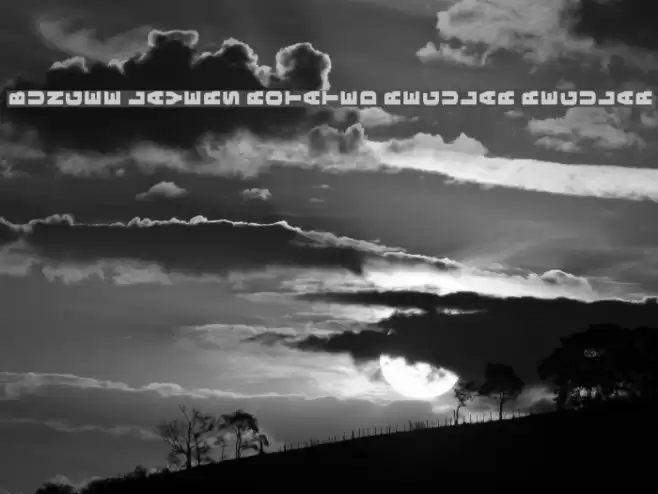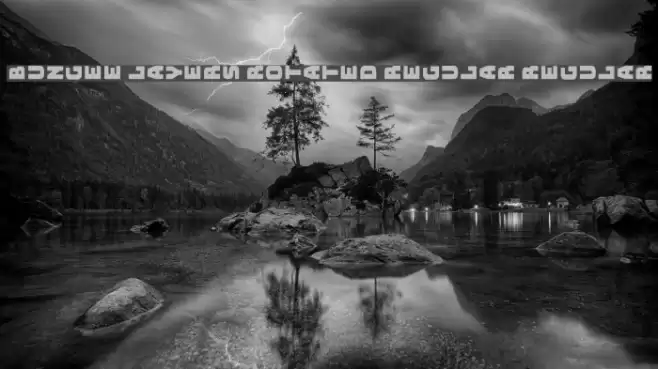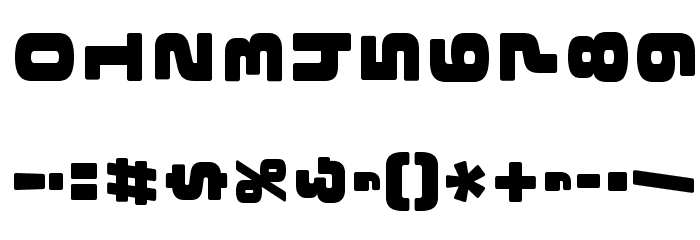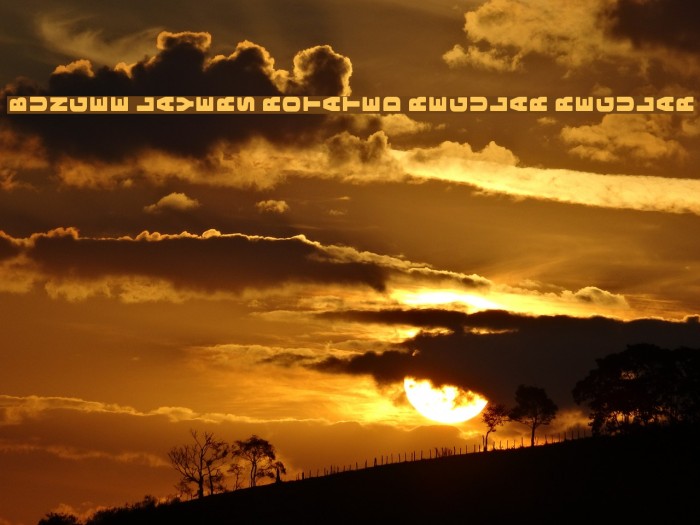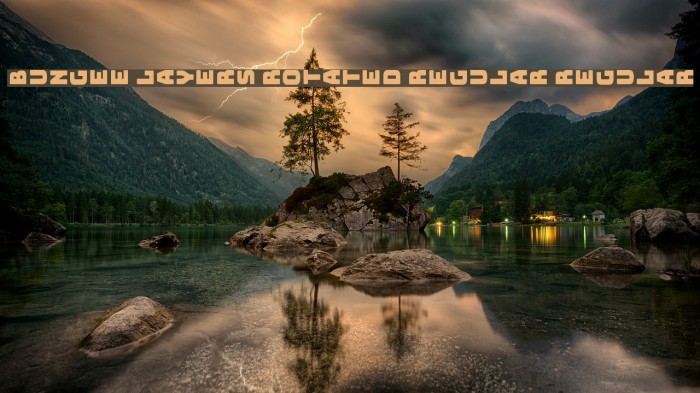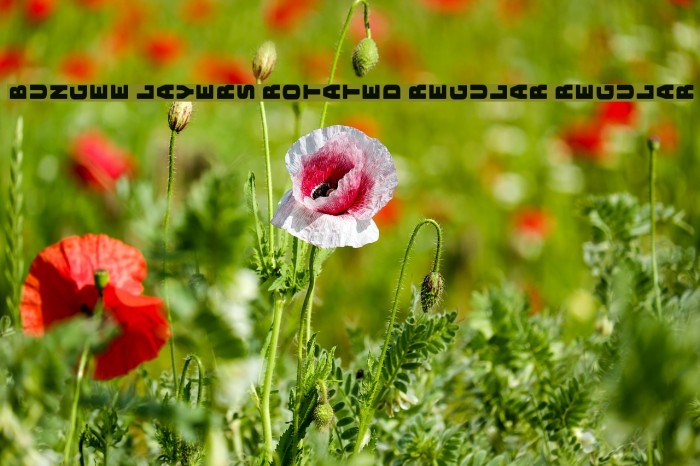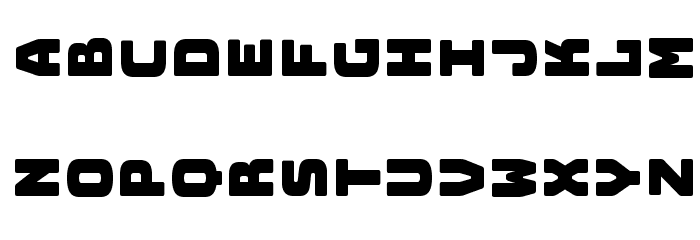
Bungee Layers Rotated Regular Font
Bungee Layers Rotated Regular Description
This font features a bold, geometric style with a playful and modern twist. The characters are rotated, giving a unique and dynamic appearance. The letters are blocky and robust, with consistent stroke thickness, creating a strong visual impact. The design is highly distinctive, making it suitable for eye-catching headlines and creative projects. The font maintains a uniform width across all characters, ensuring a cohesive look. Its boldness and unique orientation make it stand out, perfect for projects that require a modern and unconventional aesthetic.